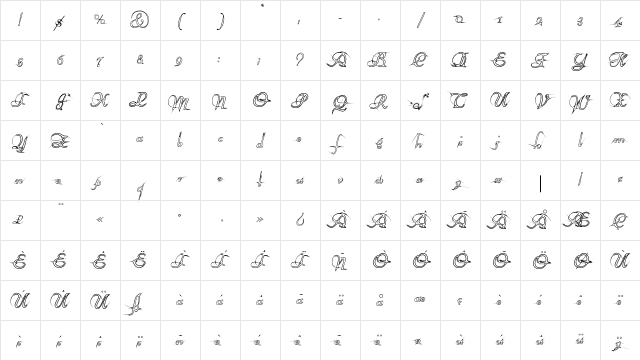
AraneaEF Outline Free Font
AraneaEF Outline
Style: Outline
Design Context for AraneaEF
AraneaEF is built around its visual character rather than neutral utility - its distinctive forms are designed to make an impression at display sizes.
Font Pairing: Pair with a clean neutral sans-serif for body copy to let AraneaEF's character lead without overwhelming the composition.
Pro Tip: Use AraneaEF exclusively at display sizes - it was designed to be seen, not read at length. Let a neutral companion handle body copy.